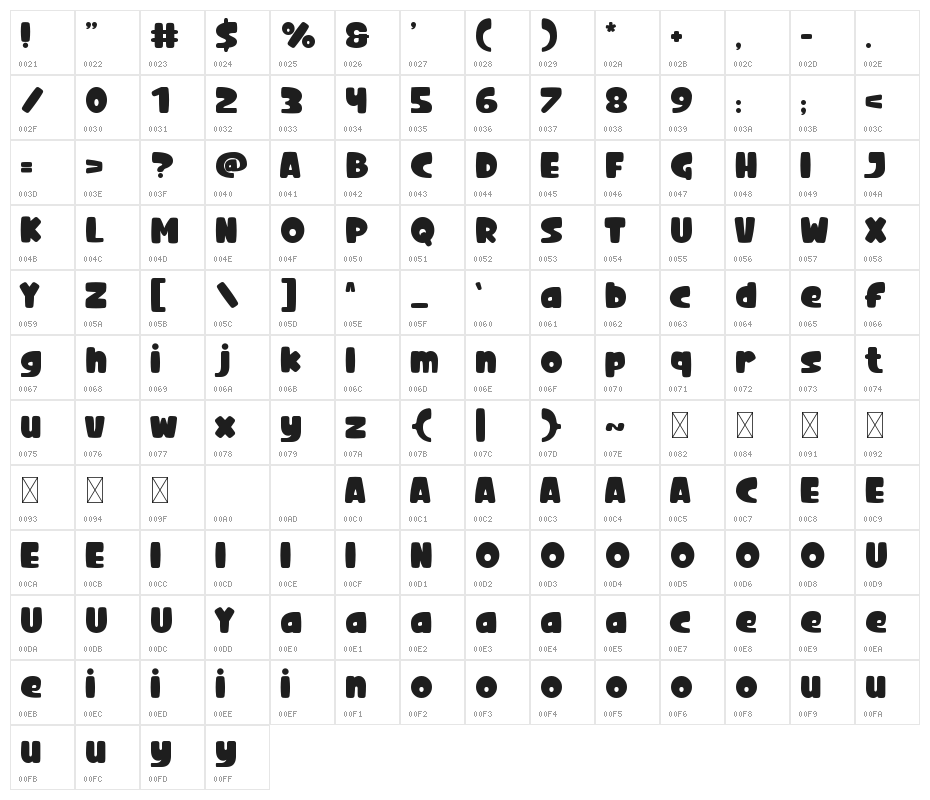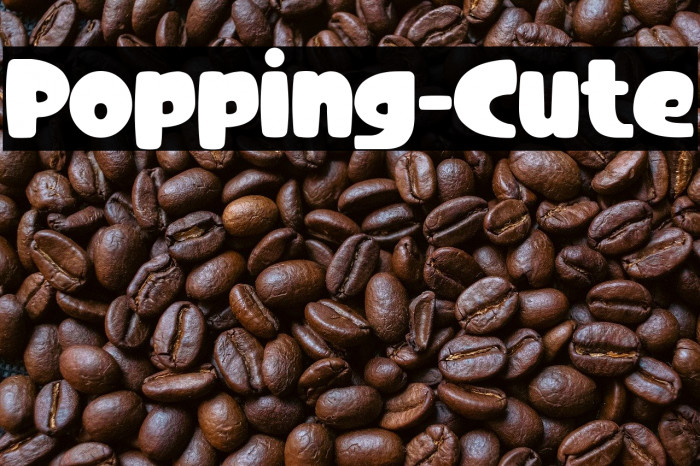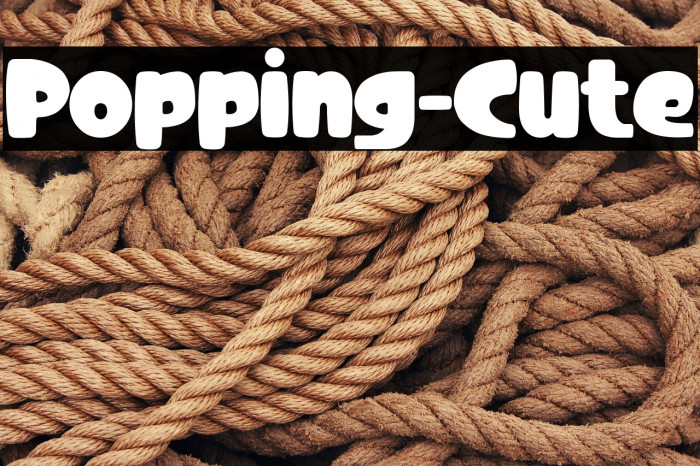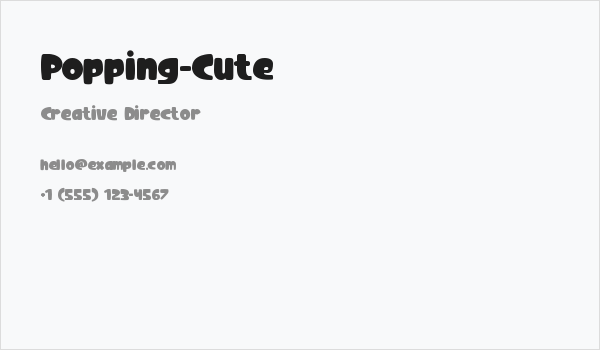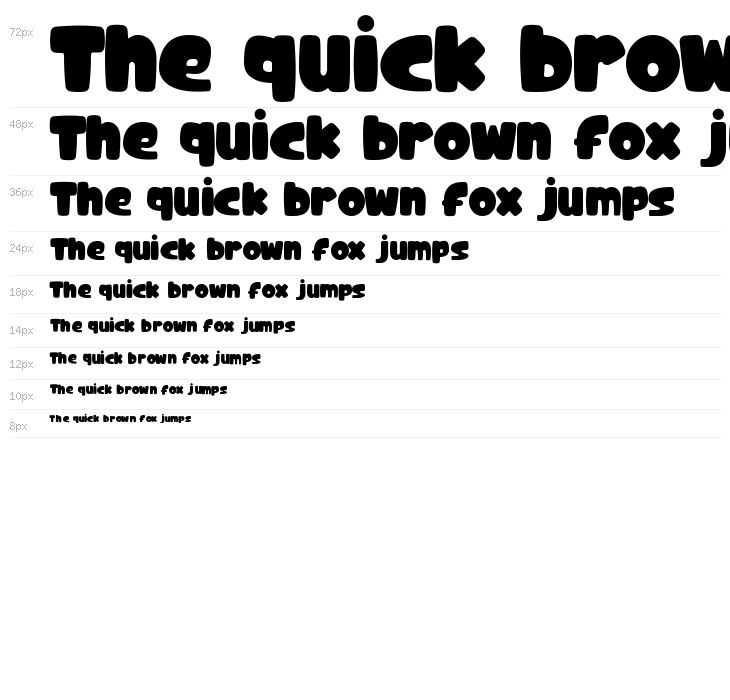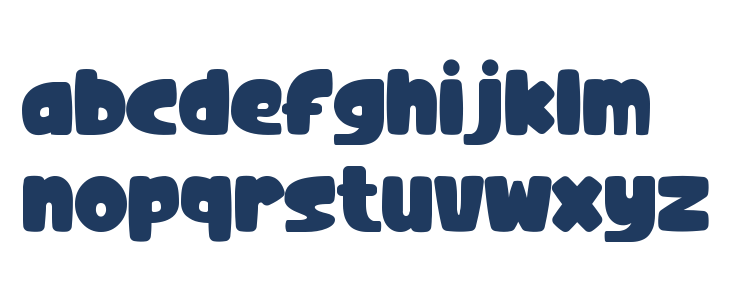
Popping-Cute Font
Popping-Cute Description
This playful and bold font features rounded, bubbly characters that exude a sense of fun and whimsy. The letters are thick and substantial, with a consistent stroke width that gives them a solid, impactful appearance. The rounded edges and lack of sharp angles contribute to a friendly and approachable feel, making it ideal for designs aimed at a younger audience or for projects that require a touch of lightheartedness. The numbers and special characters maintain the same playful style, ensuring a cohesive look across all text elements.
| Proposed Projects | Ideal for children's books, playful branding, party invitations, and fun social media graphics. |